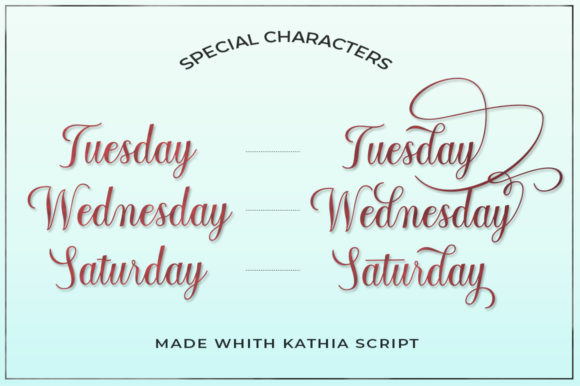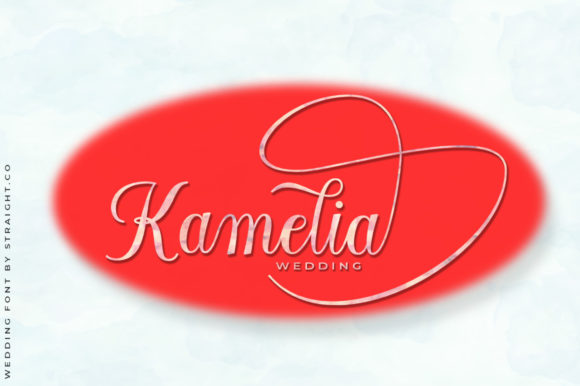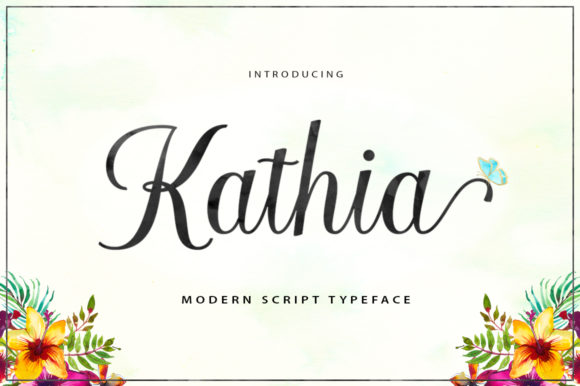
Introduction to Kathia Script Font
Remember that moment when you’re brainstorming ideas for a creative project and you stumble upon the perfect font? For designers, finding the right typography can be the difference between a good design and a great one. I had that exact moment when I discovered the Kathia Script Font, and I couldn’t wait to share its beauty with fellow creatives.
With its casual yet elegant style and pretty swashes, the Kathia Script Font is a game-changer for any design project. Whether you’re working on logos, product packaging, or wedding invitations, this high-quality font is sure to elevate your design to the next level. And the best part? It’s a free download, making it an accessible design resource for everyone.
Key Features of Kathia Script Font
- Includes a transparent background, allowing for seamless integration with various design elements.
- Features a cursive script style with a range of swashes and flourishes, adding a touch of sophistication to any design.
- Has a medium to large font size, ranging from 12 to 72 points, making it suitable for titles, headings, and other prominent design elements.
- Designed at a high resolution, ensuring crisp and clear typography, even when scaled up or down.
Honest Review: Kathia Script Font
I recently stumbled upon the Kathia Script Font, and I must say it’s a fantastic addition to any design resource collection. The font is free to download, which is a huge bonus for designers on a budget. With its high-quality design, it’s perfect for creative projects that require a touch of elegance.
- ✨ The Kathia Script Font is highly customizable, allowing designers to adjust the size, color, and spacing to suit their needs.
- ✨ The font is available in both transparent background and solid color options, giving designers the flexibility to choose the perfect look for their project.
- ✨ The design is modern and sophisticated, making it ideal for high-end branding and marketing materials.
- ⚠️ The font is not as extensive as some other script fonts on the market, with only a limited number of characters available.
Overall, I’m impressed with the Kathia Script Font. While it has its limitations, its high-quality design and flexibility make it a valuable resource for designers working on creative projects. If you’re looking for a free script font with a lot of character, the Kathia Script Font is definitely worth checking out.
The Kathia Script Font is ideal for creative projects such as wedding invitations, birthday cards, and social media graphics. Its elegant and sophisticated design makes it perfect for any occasion that requires a touch of luxury and sophistication.